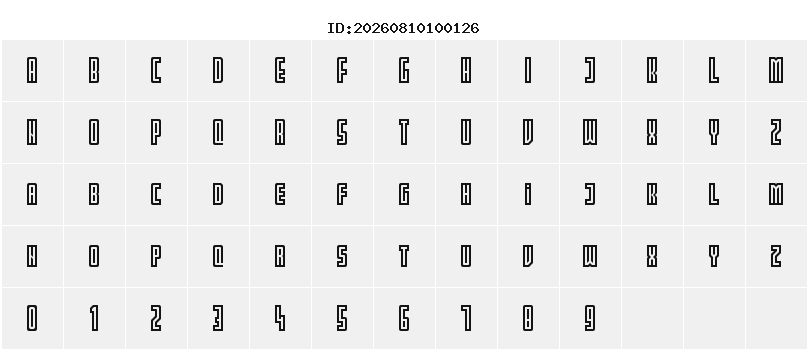
• Font Name: PARTIN
• Full Font Name: PARTIN Regular
• Designer: dukom
• Description: ‚ÄúPARTIN‚Äù was built with FontStruct
About PARTIN.ttf
PARTIN.ttf is a modern, elegant sans-serif font designed for ultimate readability and visual harmony. Perfect for branding, headlines, web design, and print materials.